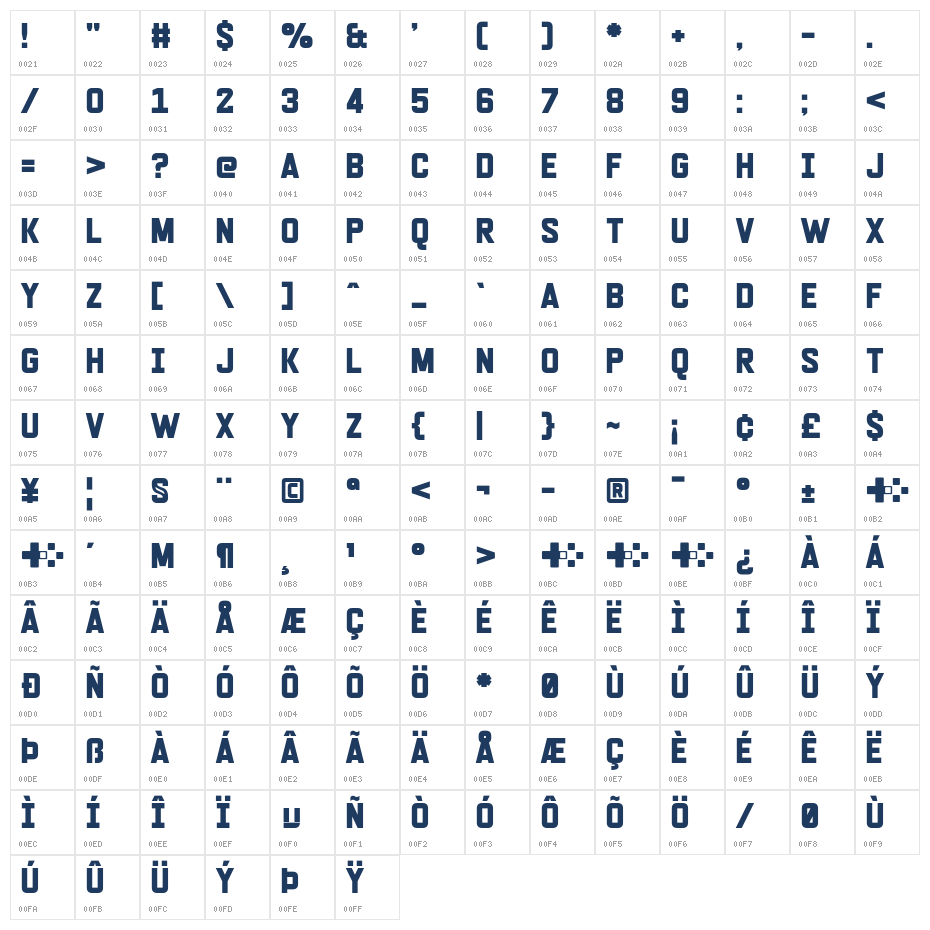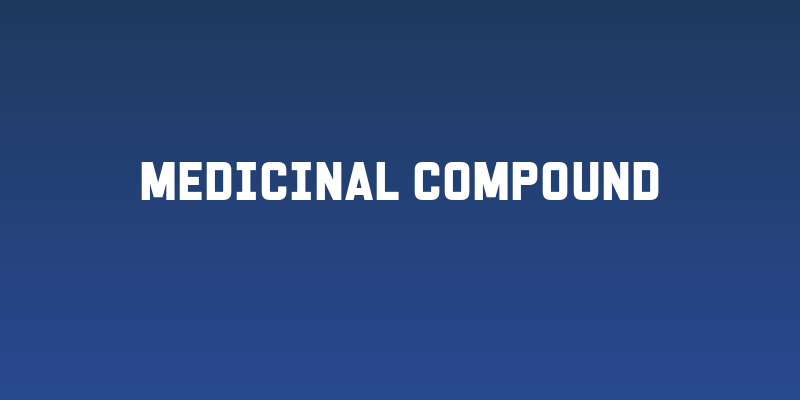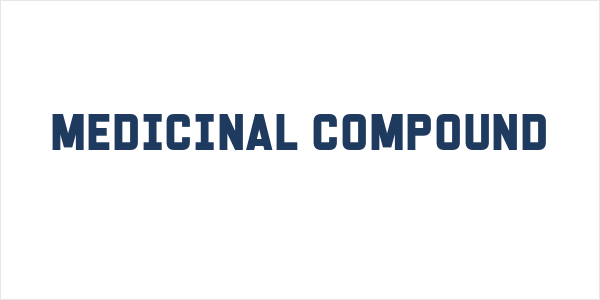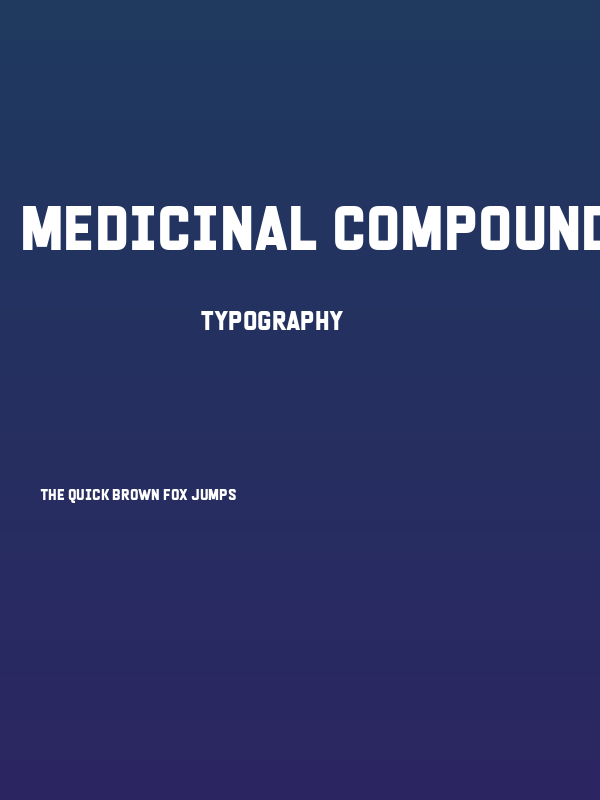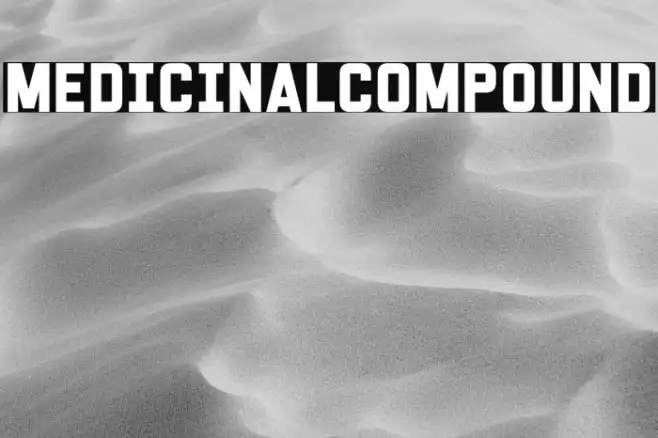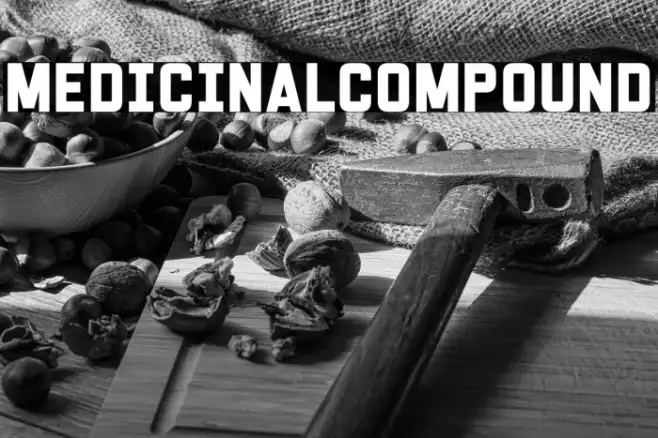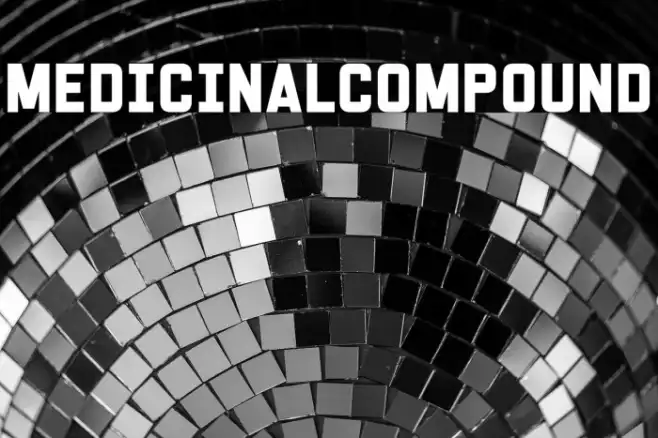
Medicinal Compound Font
Medicinal Compound Description
Bold, blocky, sans-serif font with a strong, geometric appearance.
| Overall Style | Modern, Geometric |